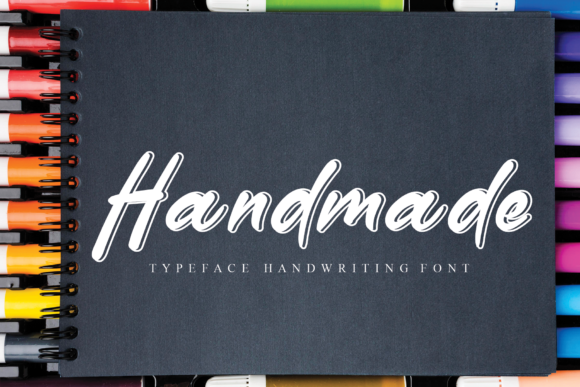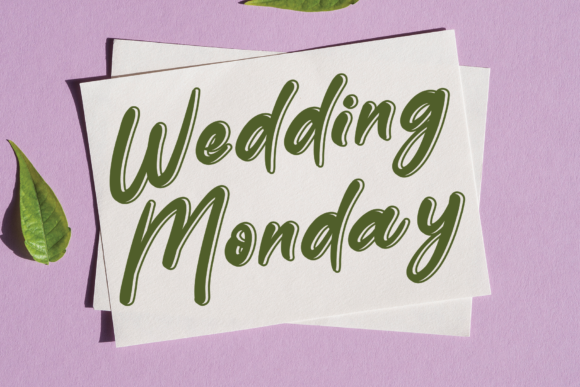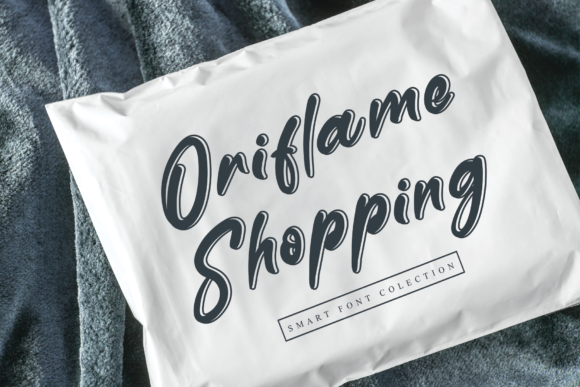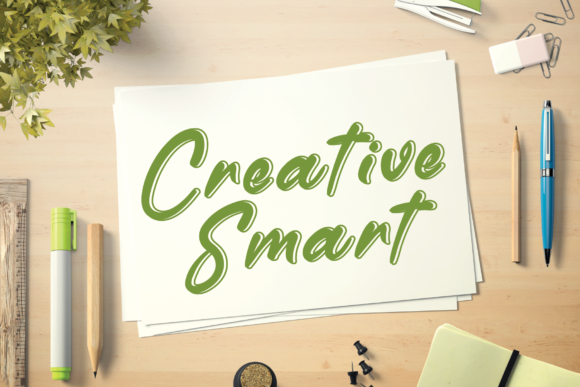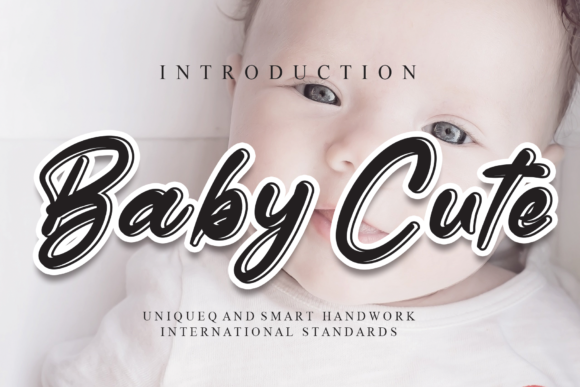
Baby Cute Font: The Perfect Choice for Delicate and Natural Designs
In the world of typography, fonts play a crucial role in conveying the tone and personality of a brand or design. For designers and crafters looking for a delicate and natural handwritten font, Baby Cute Font is an excellent choice. This beautiful font is suitable for a wide range of applications, including branding, product packaging, invitations, quotes, t-shirts, labels, posters, and logos.
What Makes Baby Cute Font Special?
Baby Cute Font is a unique and charming font that is designed to add a touch of sweetness and innocence to any design. Its delicate and natural handwritten style makes it perfect for creating visually appealing and engaging designs. The font’s subtle imperfections and varying line widths give it a human touch, making it ideal for designs that require a personal and emotive feel.
Key Features of Baby Cute Font
- Delicate and natural handwritten style: Baby Cute Font features a beautiful, handwritten style that is both delicate and natural.
- Suitable for various applications: This font is versatile and can be used for a wide range of design projects, including branding, product packaging, invitations, quotes, t-shirts, labels, posters, and logos.
- Easy to read: Despite its delicate nature, Baby Cute Font is easy to read, making it perfect for designs that require a clear and concise message.
- Unique and charming: This font has a unique and charming personality that can add a touch of sweetness and innocence to any design.
How to Use Baby Cute Font in Your Designs
Baby Cute Font can be used in a variety of design projects, from digital designs to print materials. Here are some ideas on how to use this beautiful font:
- Branding: Use Baby Cute Font as a logo font or as a typography font for your brand’s marketing materials.
- Product packaging: Add a touch of sweetness and innocence to your product packaging with Baby Cute Font.
- Invitations: Create beautiful and elegant invitations for special occasions, such as weddings, baby showers, and birthday parties.
- Quotes and posters: Use Baby Cute Font to create inspiring and visually appealing quotes and posters.
- T-shirts and apparel: Design cute and stylish t-shirts and apparel with Baby Cute Font.
Tips for Pairing Baby Cute Font with Other Fonts
Pairing Baby Cute Font with other fonts can create a unique and visually appealing design. Here are some tips for pairing this font with other fonts:
- Pair with a bold font: Pair Baby Cute Font with a bold font to create a striking contrast and add visual interest to your design.
- Pair with a serif font: Pairing Baby Cute Font with a serif font can create a beautiful and elegant design.
- Pair with a script font: Pairing Baby Cute Font with another script font can create a cohesive and stylish design.
Baby Cute Font is a beautiful and delicate handwritten font that is perfect for designers and crafters looking for a natural and charming typography solution. Its versatility and ease of use make it suitable for a wide range of design projects, from branding and product packaging to invitations and posters. With its unique and charming personality, Baby Cute Font is sure to add a touch of sweetness and innocence to any design.
Whether you’re a designer or a crafter, Baby Cute Font is an excellent choice for your next design project. So why not give it a try and see how this beautiful font can elevate your designs?